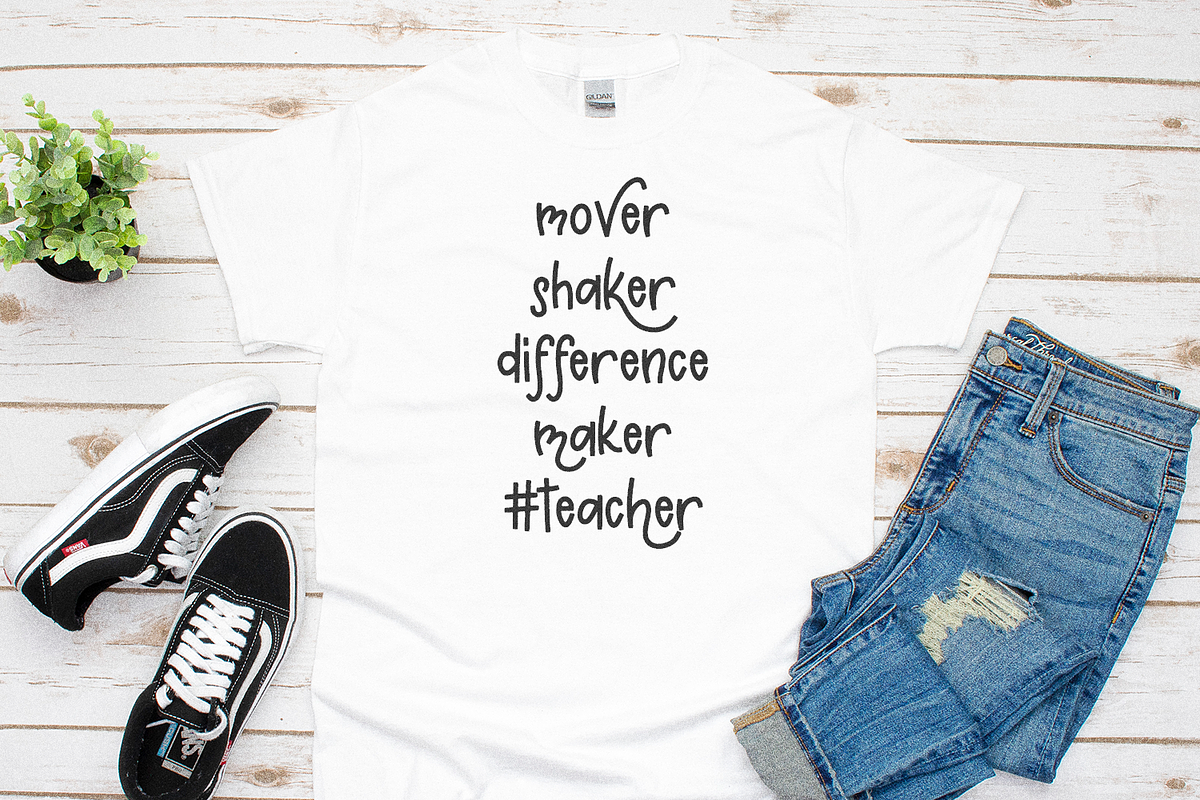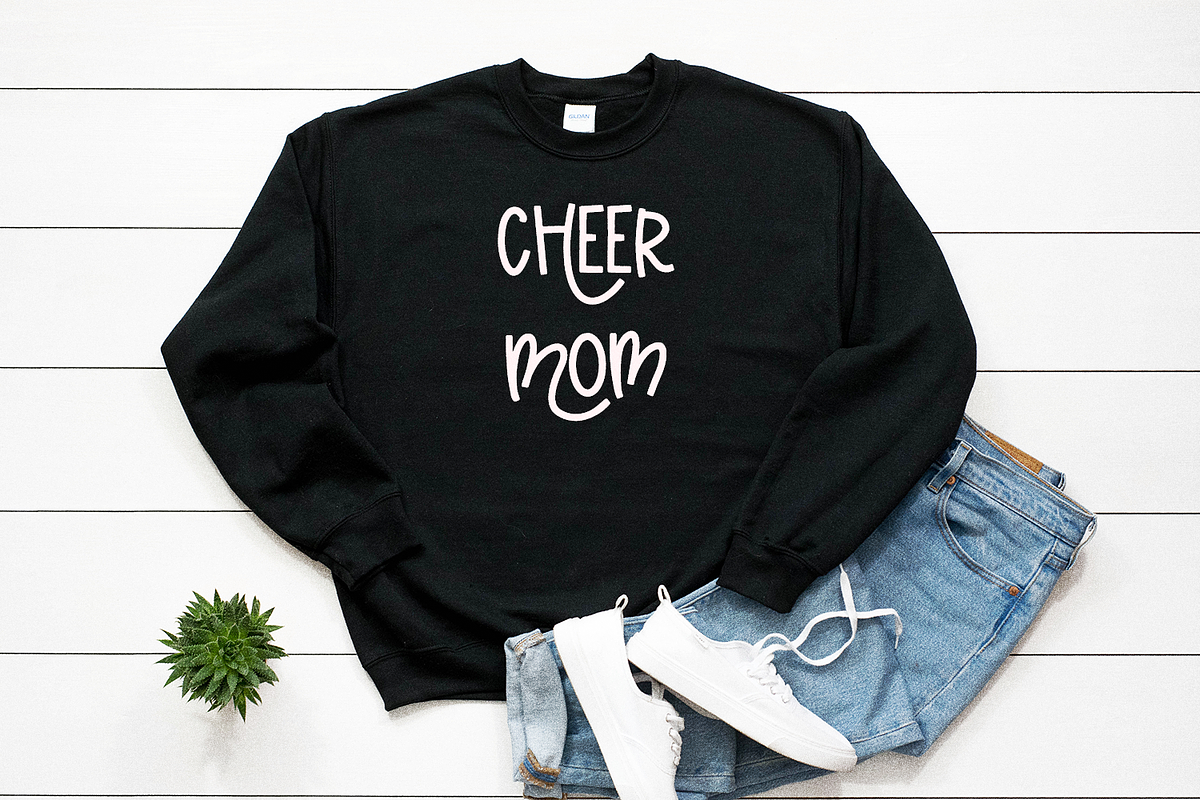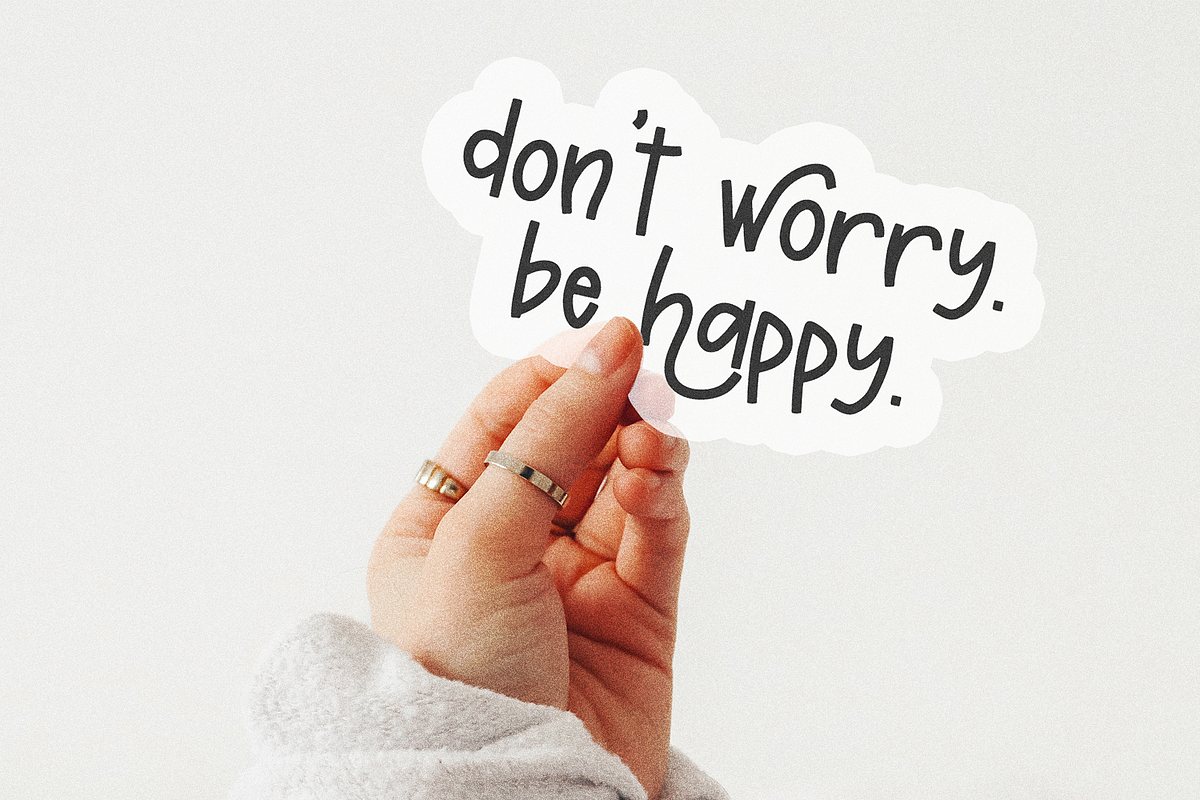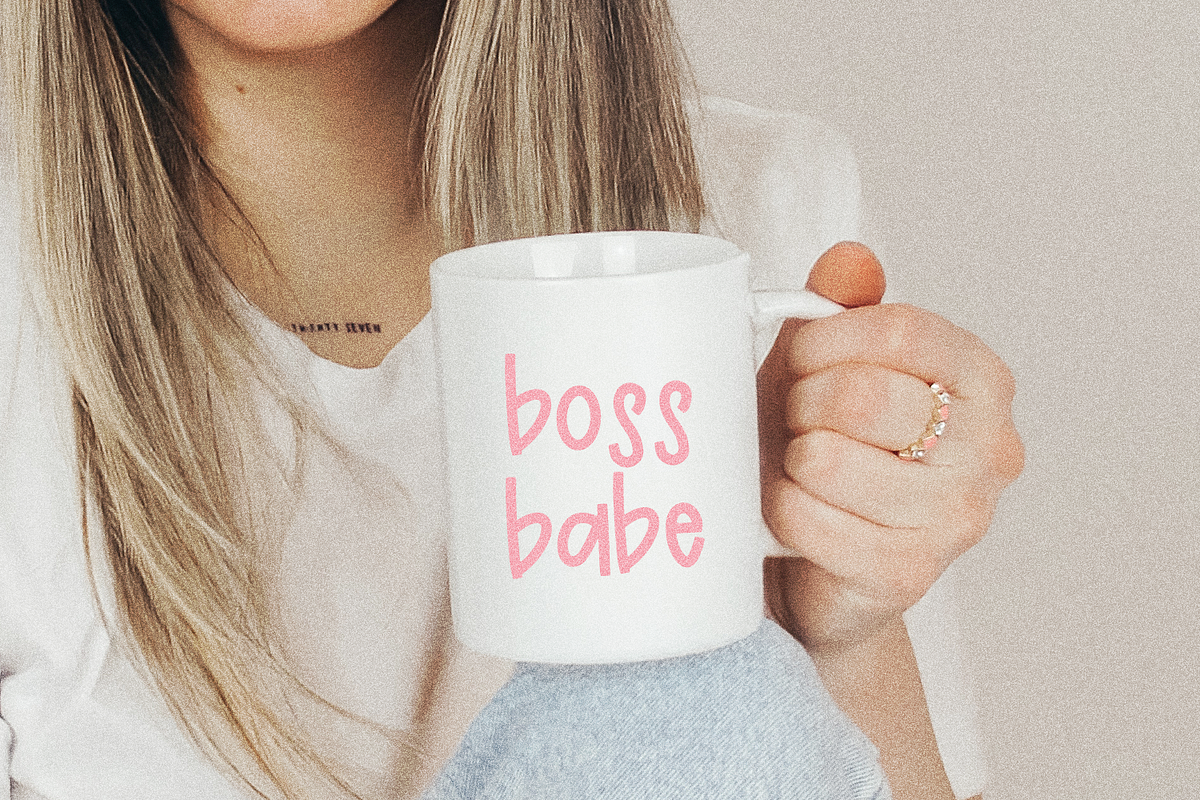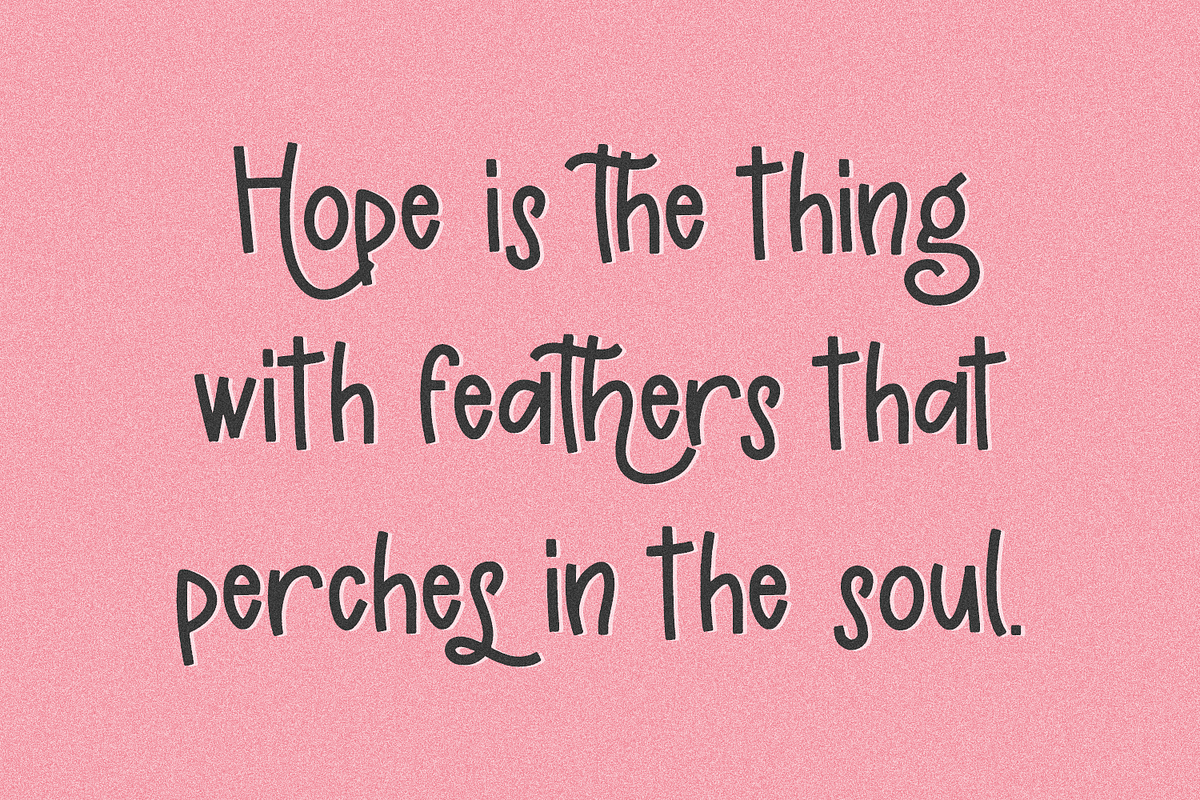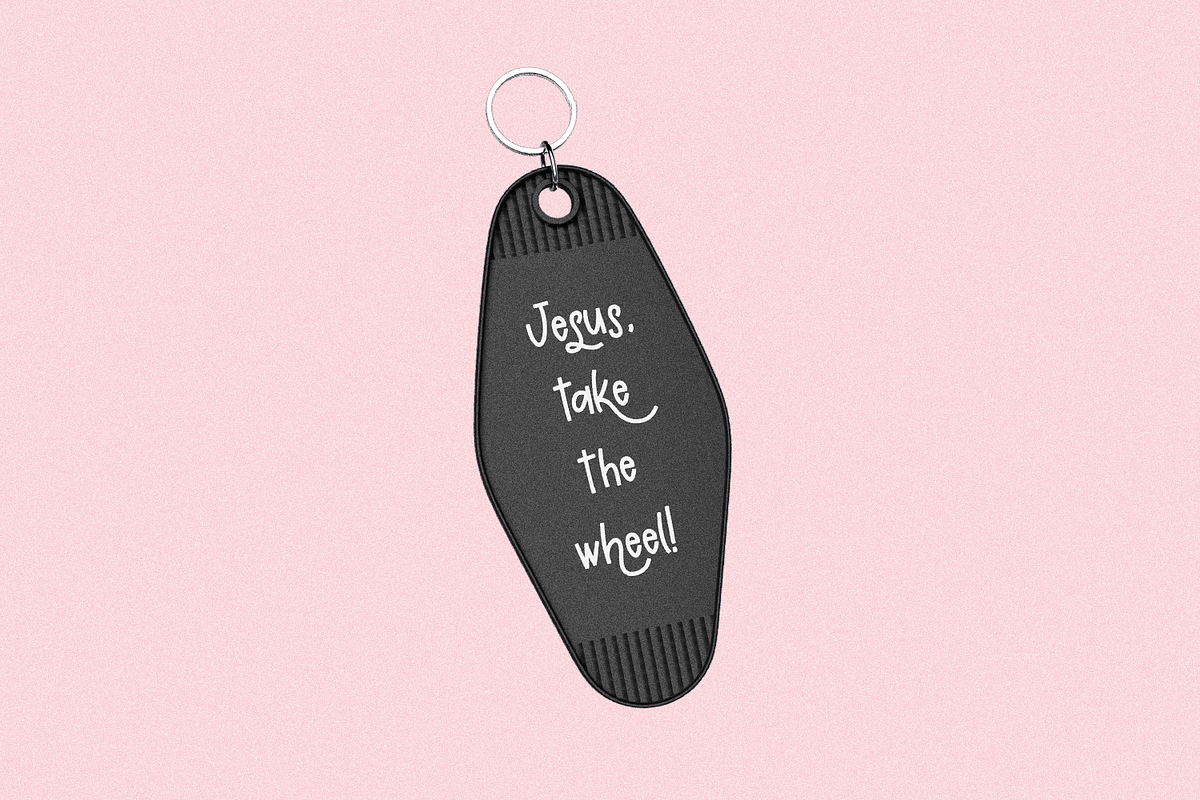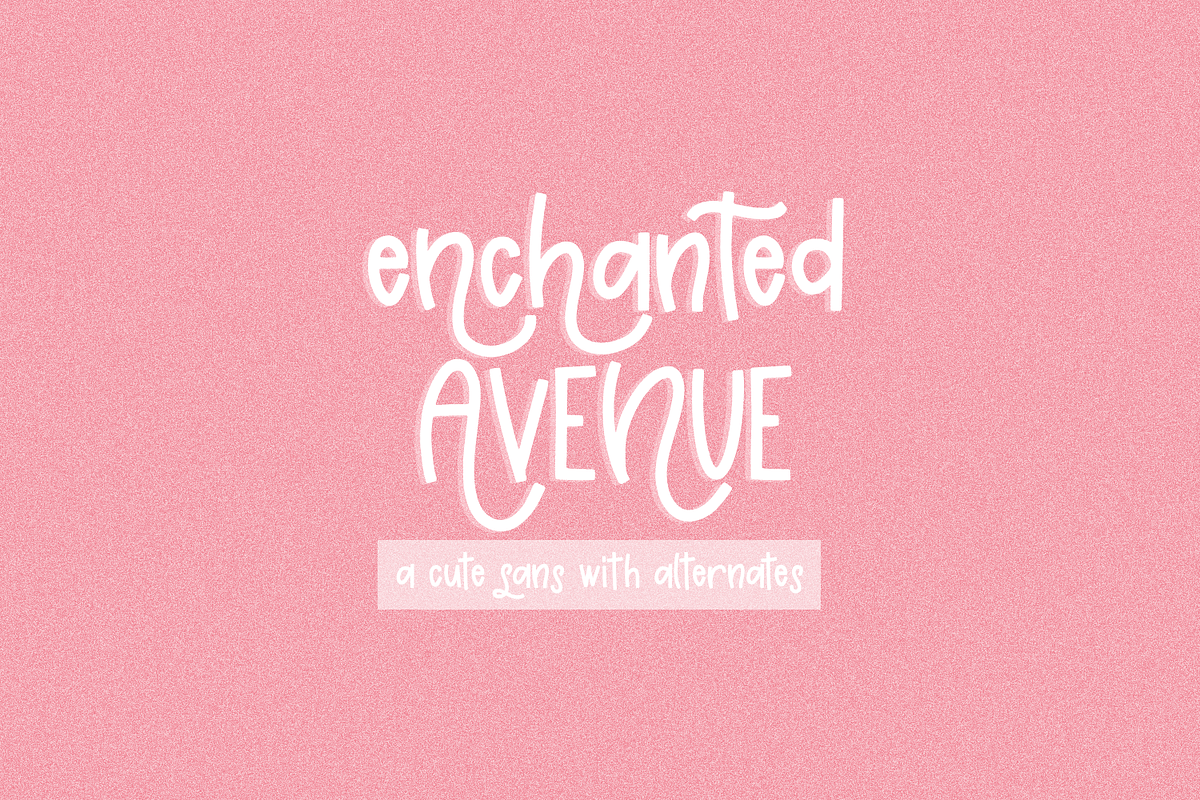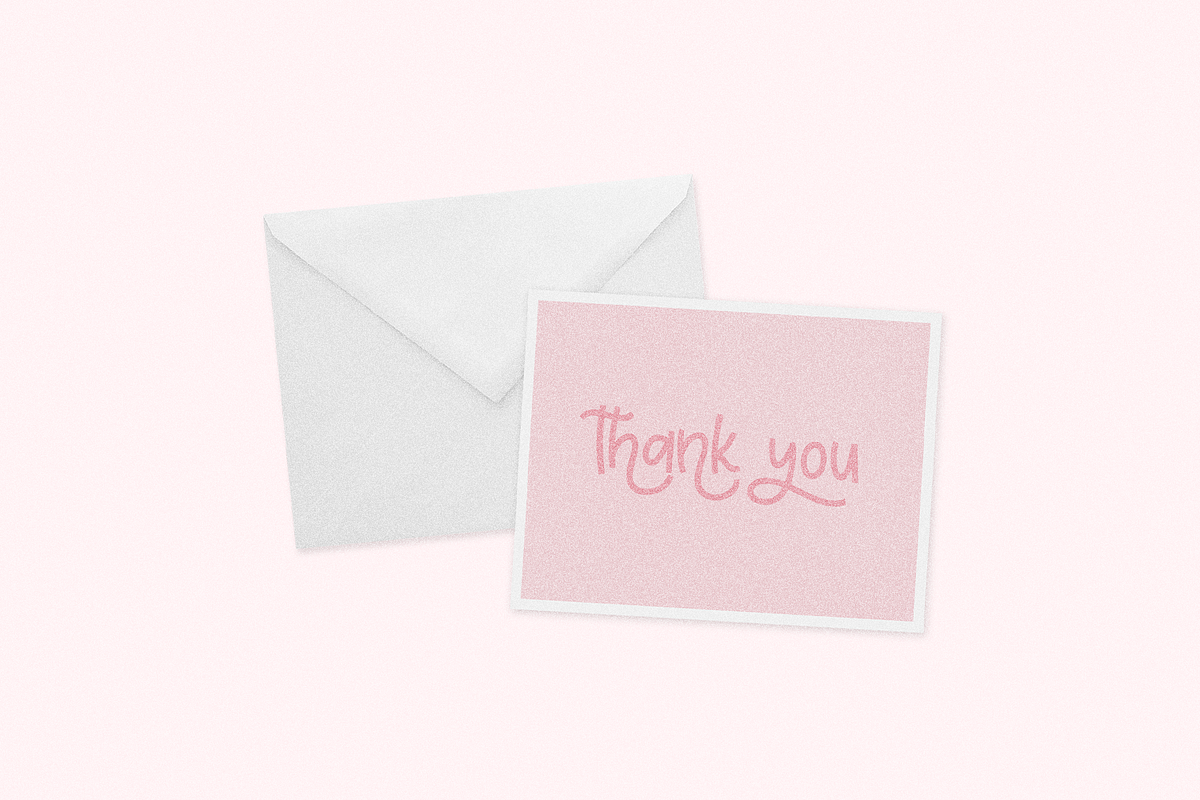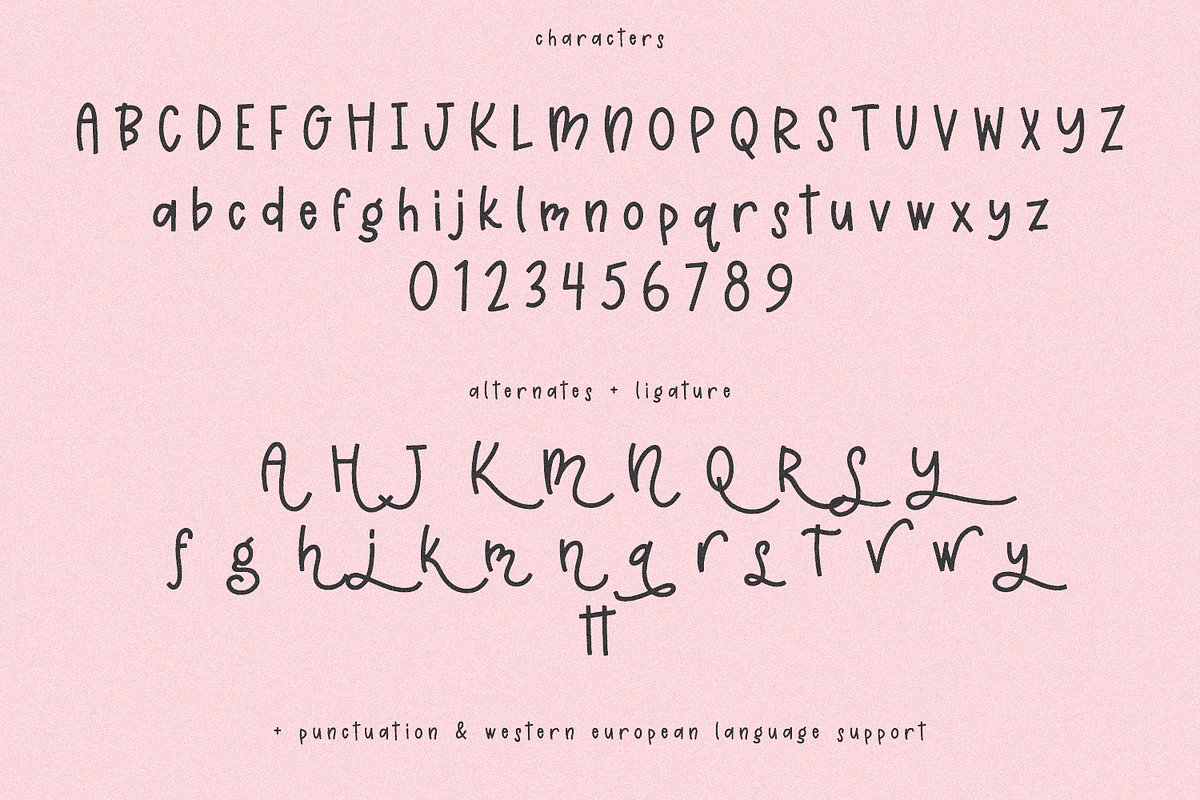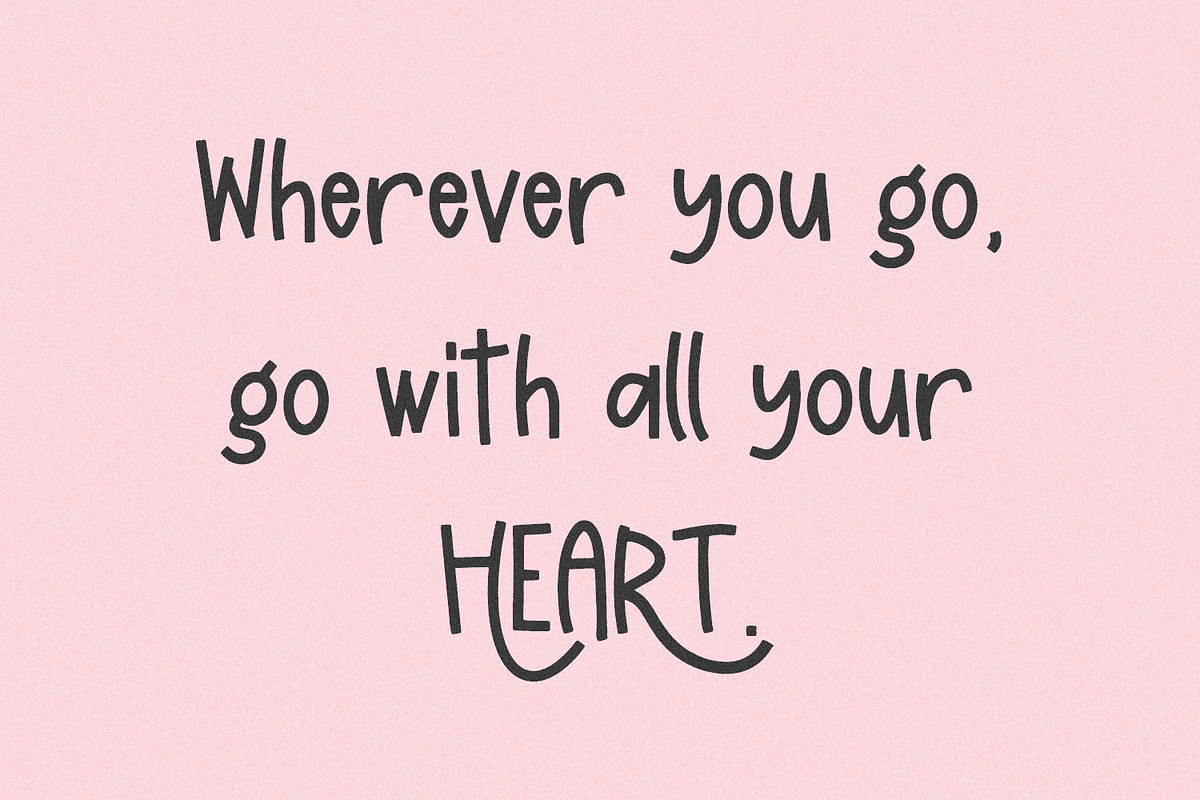
Enchanted Avenue Sans
Enchanted Avenue Sans is a whimsical sans font. This font has squared off ends, and also includes playful swooping alternates to customize the whimsy in your project. Enchanted Avenue is perfect for logos & branding, greeting cards, painted banners, digital planners, note-taking apps, Canva, Cricut projects, Silhouette projects, designing SVG files, laser cutting projects, & more.
Enchanted Avenue Sans includes:
- full upper + lowercase characters
- numbers + punctuation
- 24 alternates - A, H, J, K, M, N, Q, R, S, Y, f, g, h, j, k, m, n, q, r, s, t, v, w, y
- 1 ligature - tt
- Western European language support - English, French, Spanish, Portuguese (Brazil), Portuguese (Portugal), Italian, German (Germany), German (Austria), Dutch, Danish, Swedish, Norwegian (Bokmål and Nynorsk), Finnish, Icelandic, Irish, Welsh